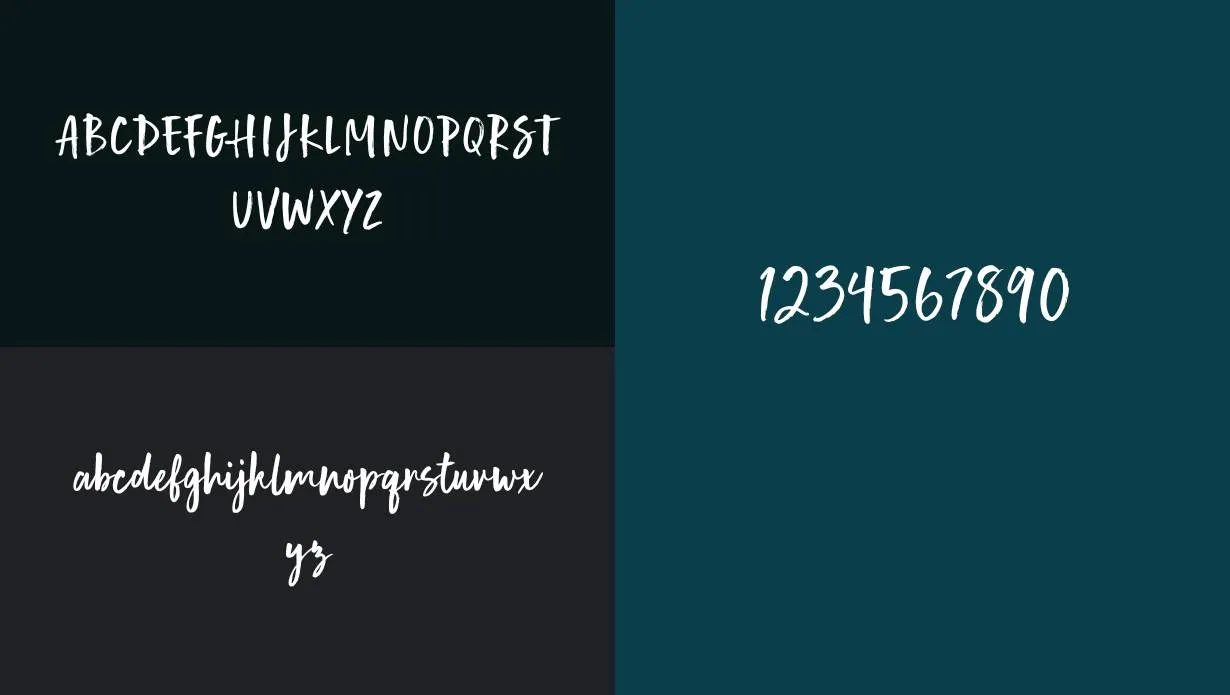
Human Nature Font is a sleek and contemporary typeface perfect for a variety of design uses.
Its straightforward lines and contemporary style make it a practical choice for branding, advertising, web design, and packaging, providing a contemporary and well-organized aesthetic to your projects.
| Name | Human Nature Font |
| Designer | BLKBK Fonts |
Human Nature Font Family